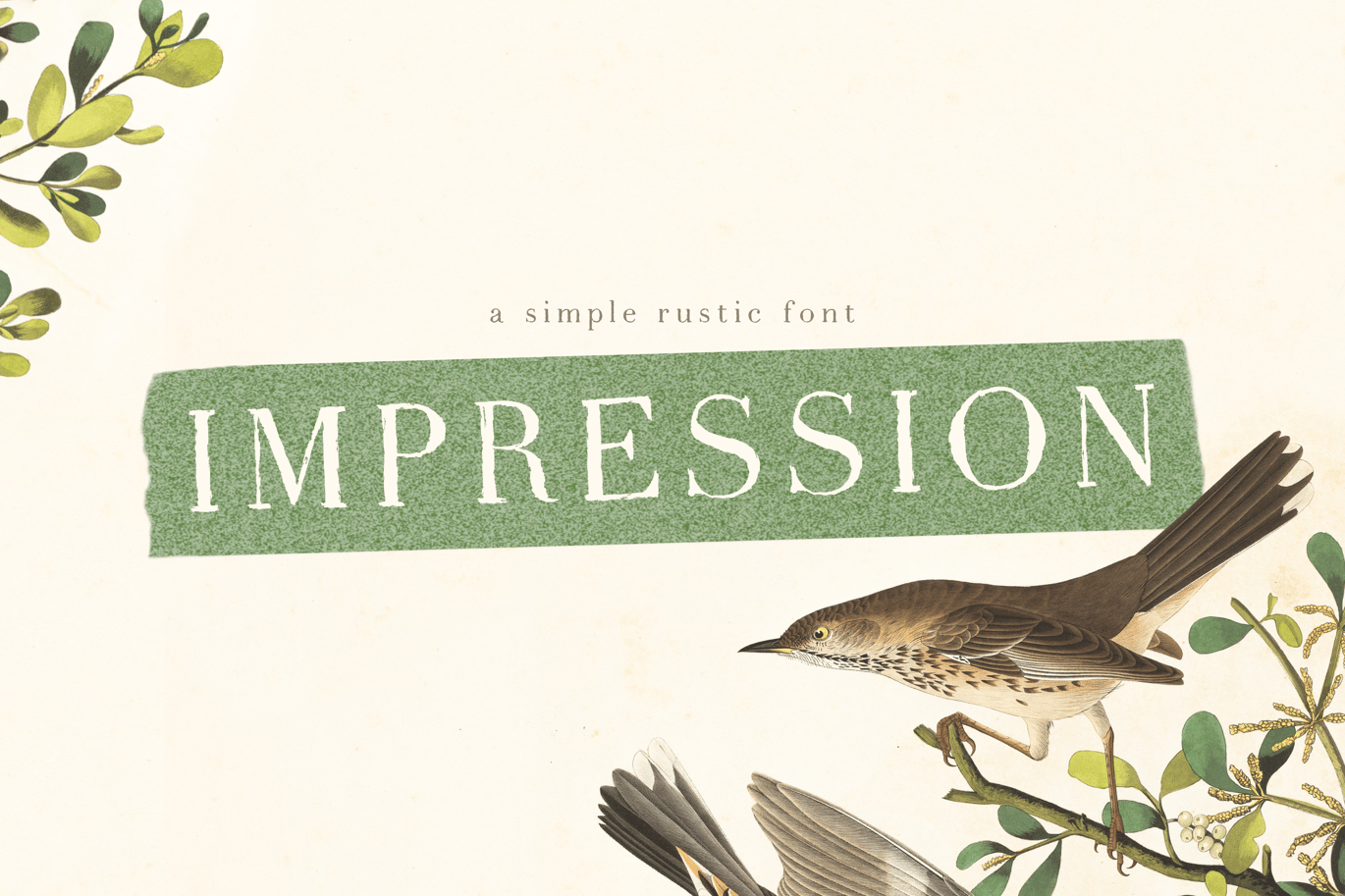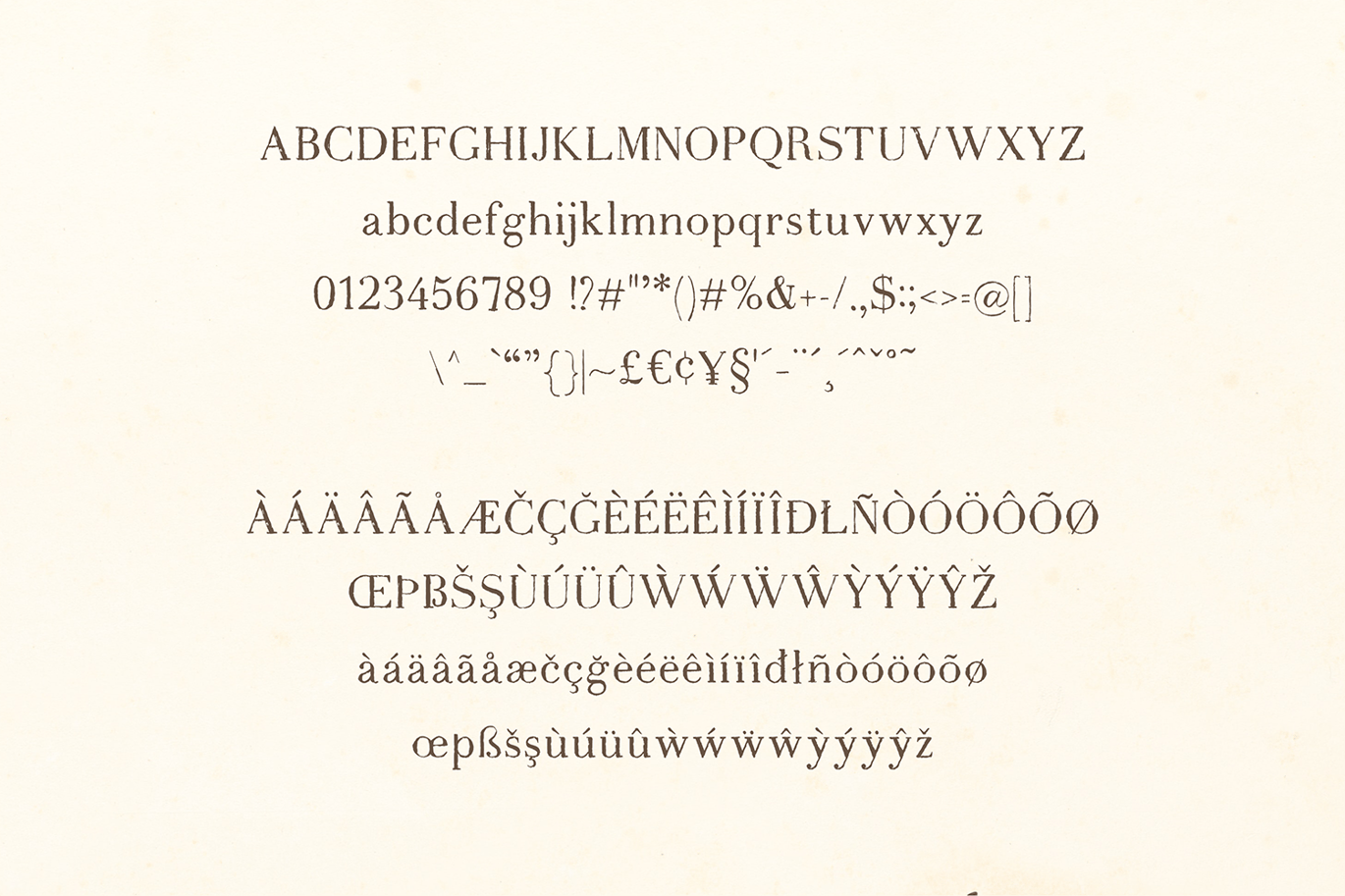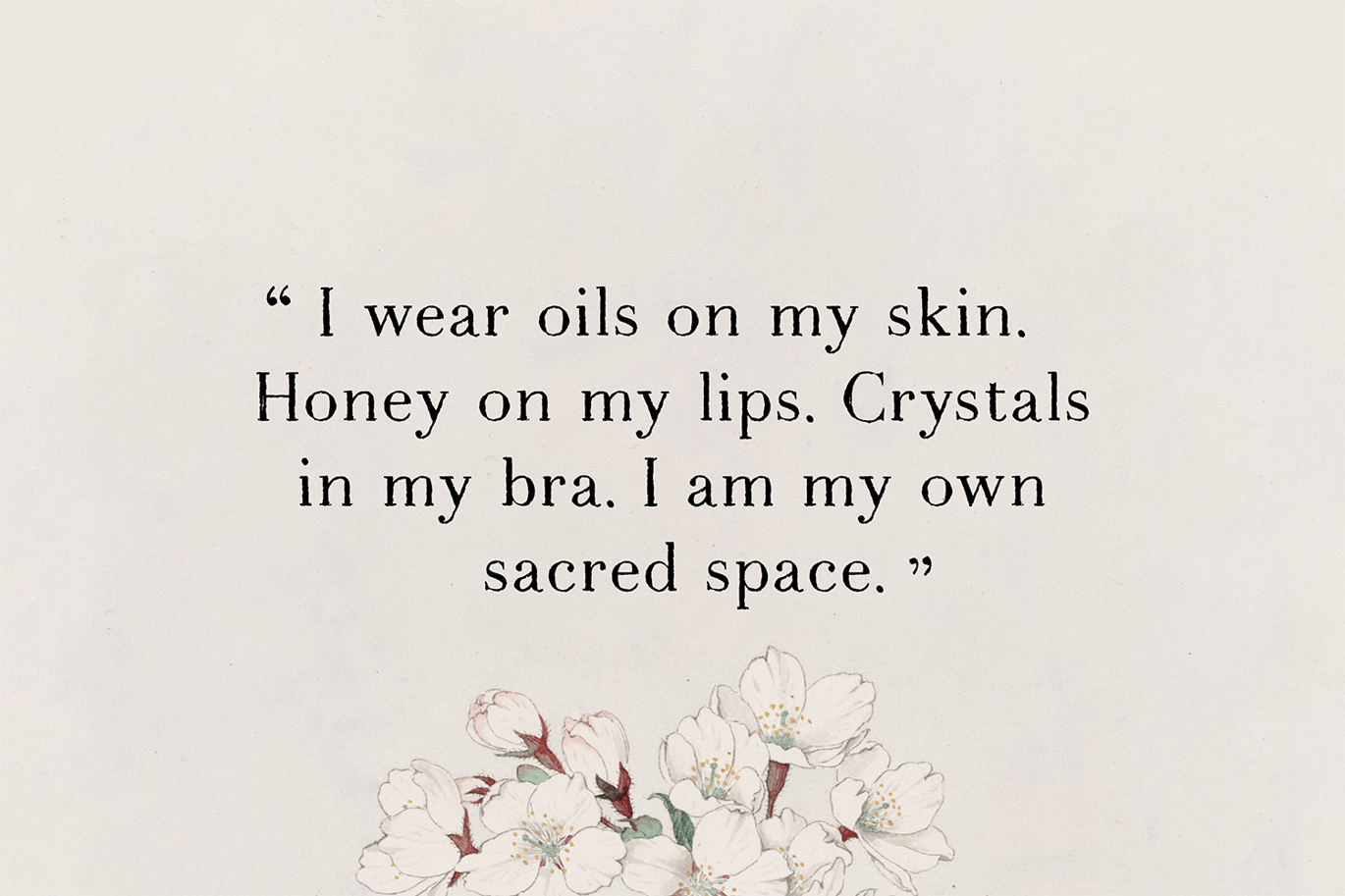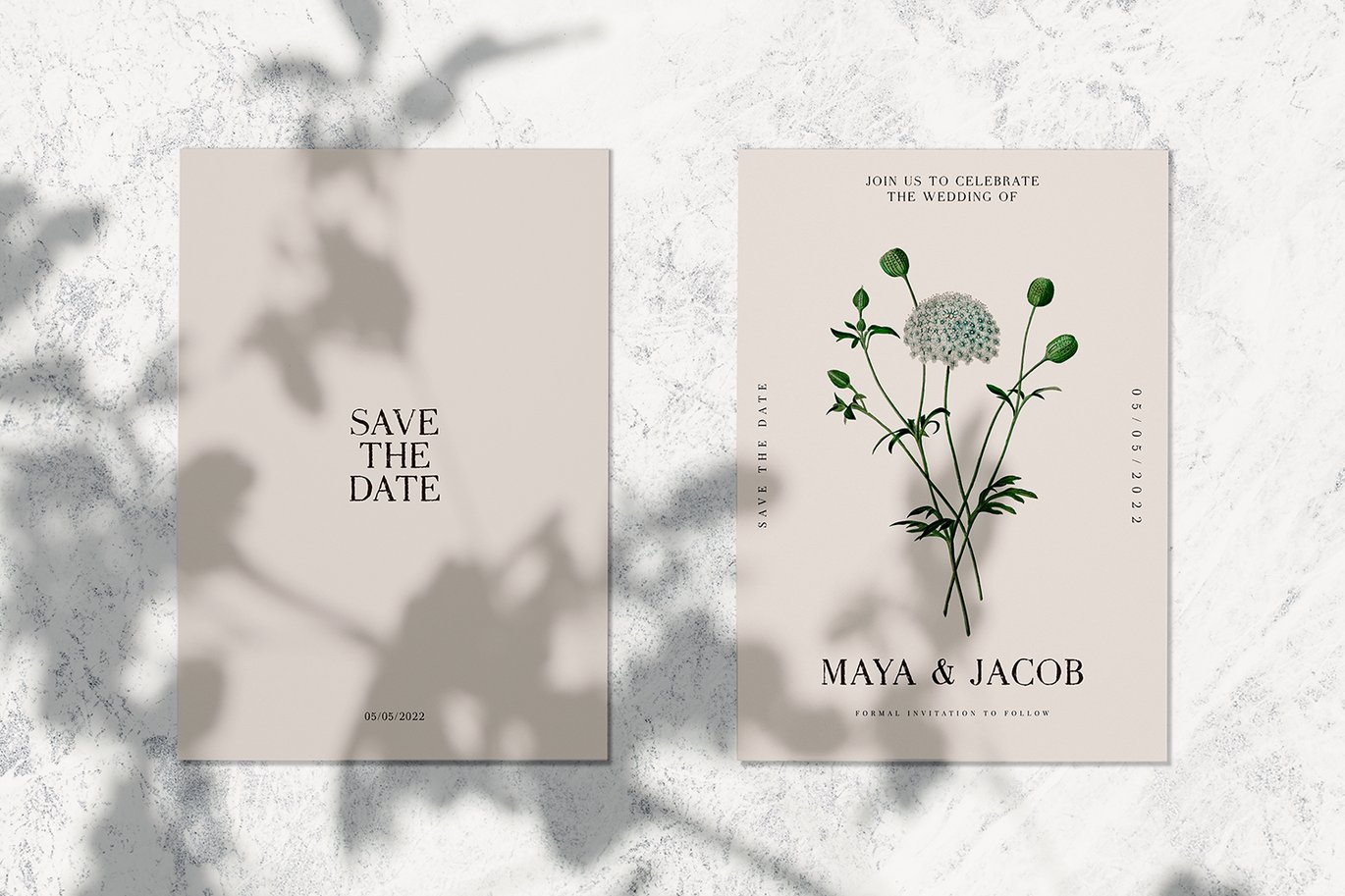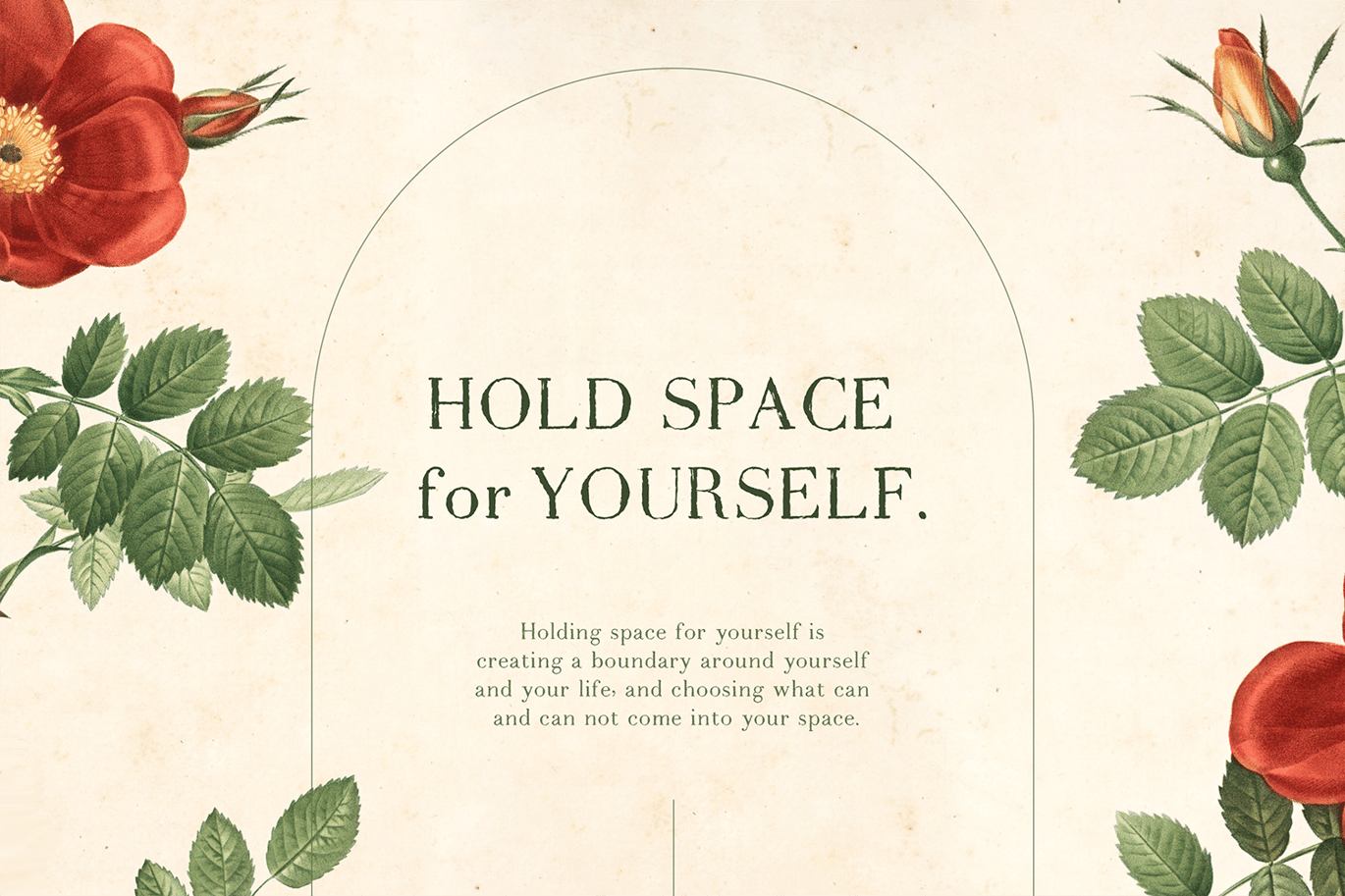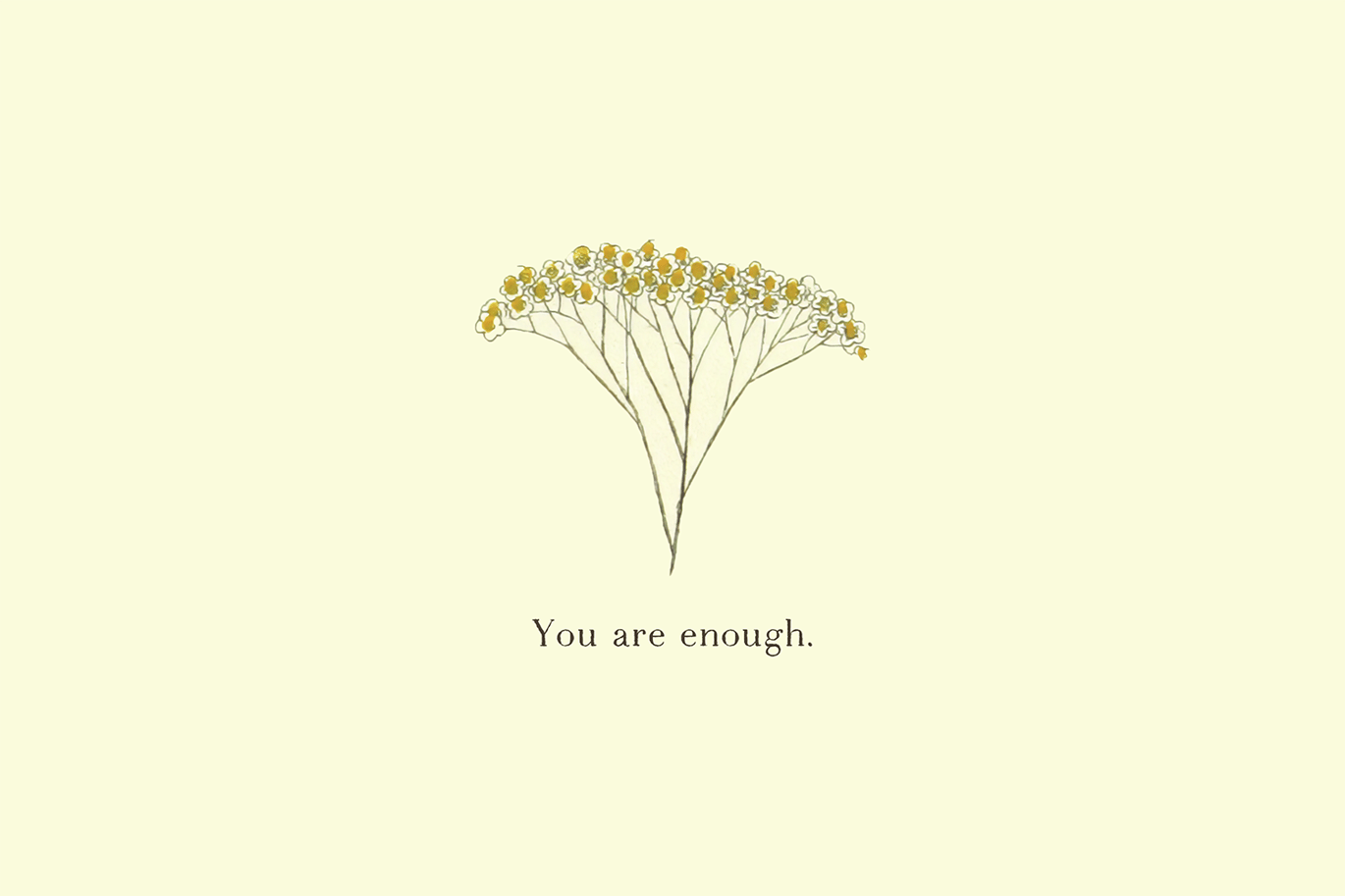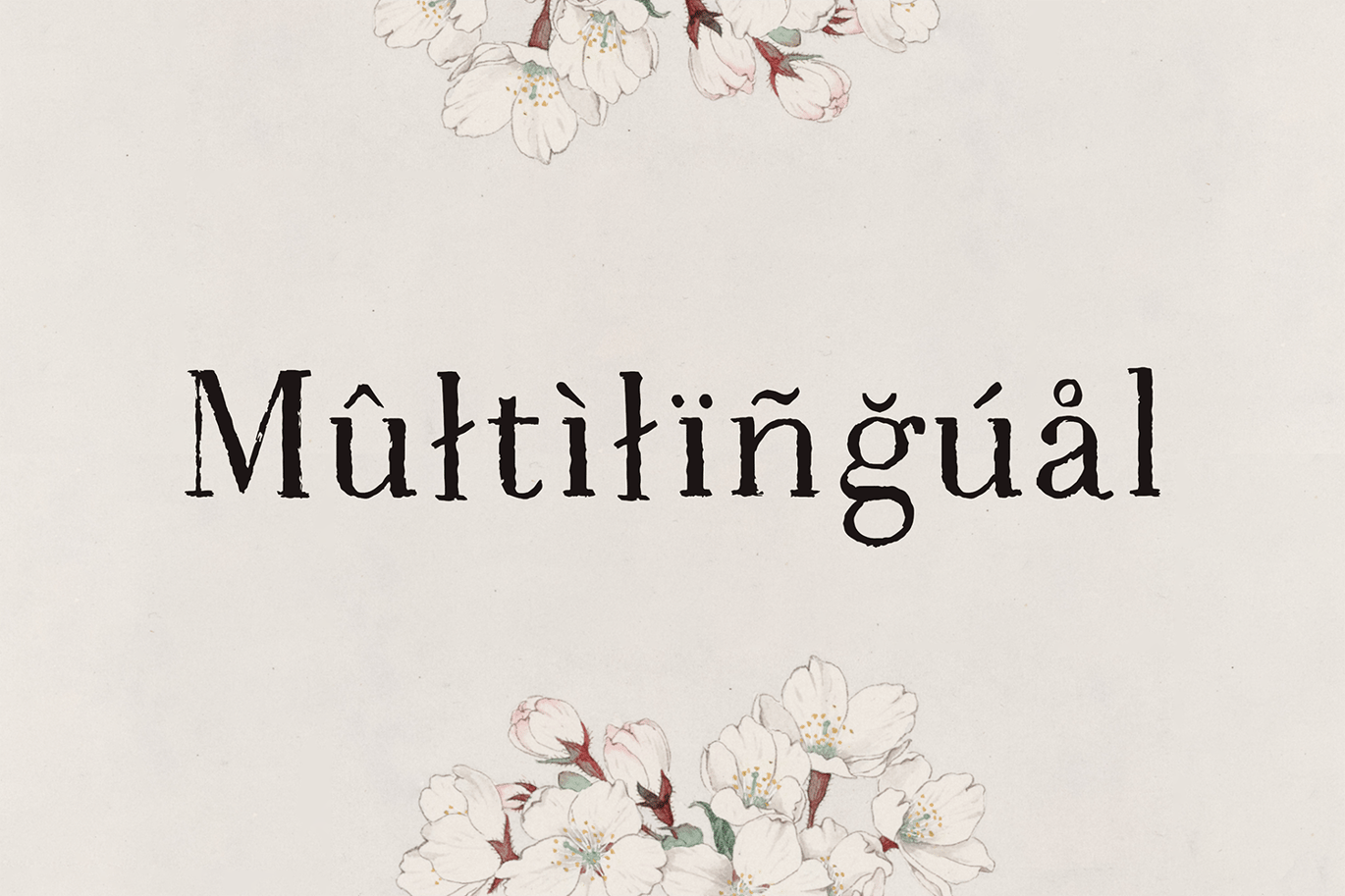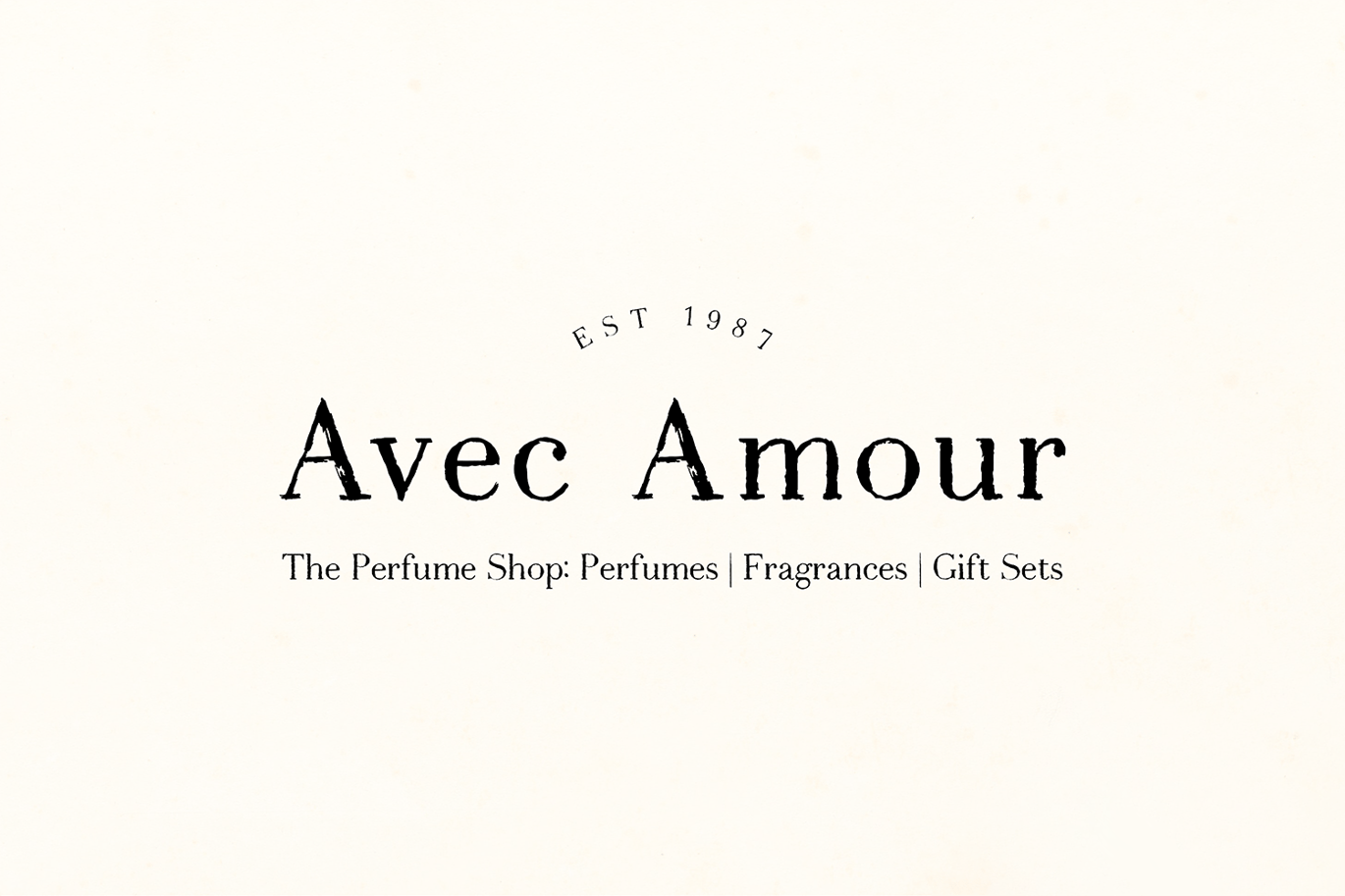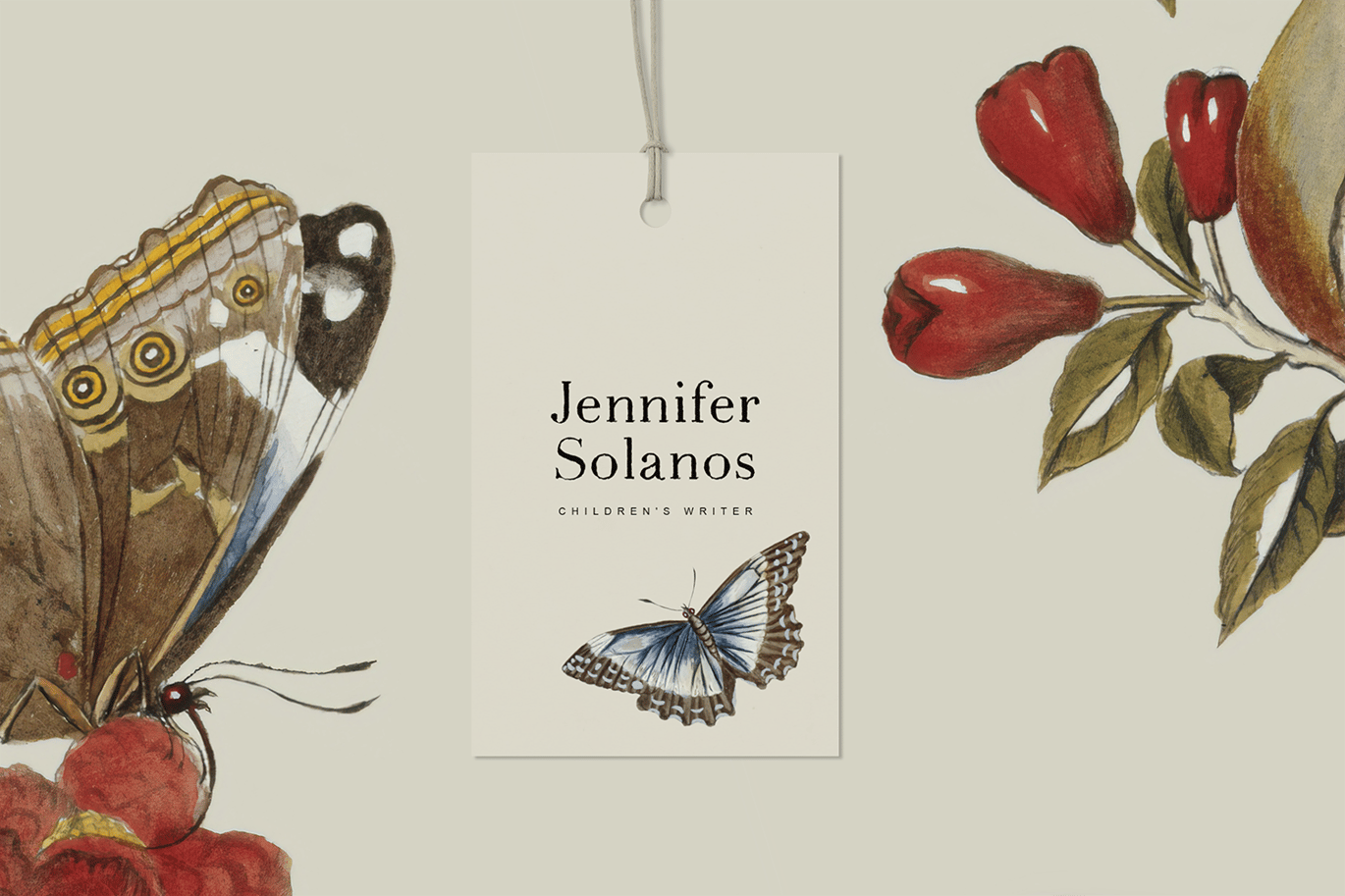
Hand-lettered rustic font
Hand-lettered rustic font. Simple and cute.
- Upper/lowercase, numbers, punctuations.
Language support: English, German, French, Spanish, Italian, Danish, Finnish, Portuguese, Swedish, Norwegian, Dutch, Indonesian, Luxembourgish, Icelandic, Cornish, Hungarian, Filipino, Turkish.